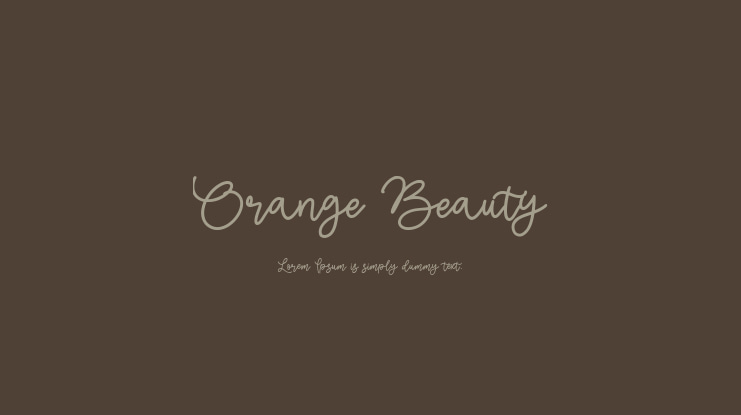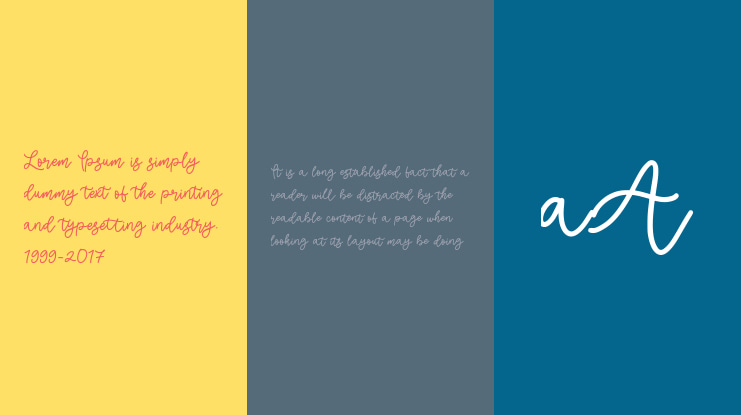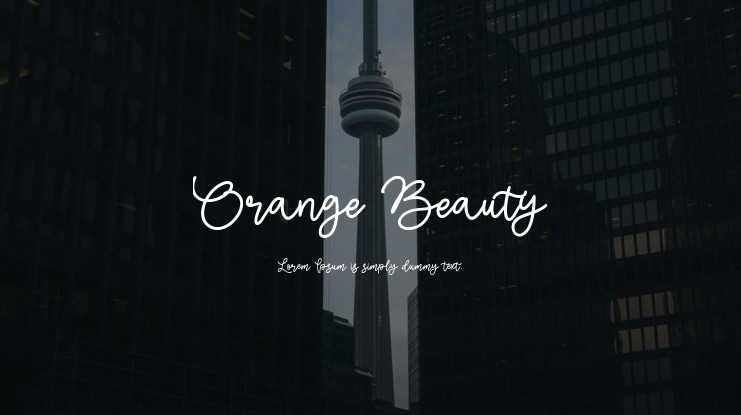
Orange Beauty Font
Introducing Orange Beauty, a Monoline Script font created by Balpirick Studio. With its clean, elegant design, this font is perfect for a variety of design projects. Its smooth lines and understated sophistication give it a modern yet timeless appeal.
Crafted with precision and care, Orange Beauty is a versatile font that can be used for logos, branding, invitations, packaging, and more. Its simple yet refined aesthetic is guaranteed to leave a lasting impression on anyone who sees it.